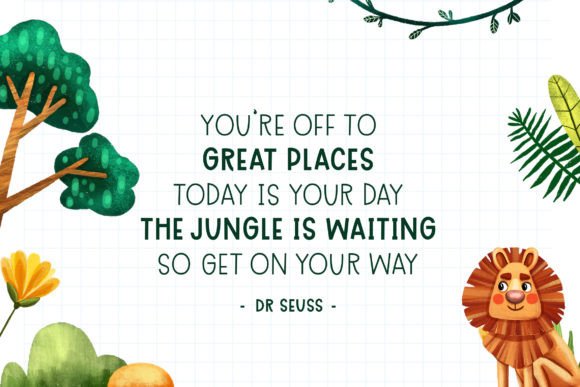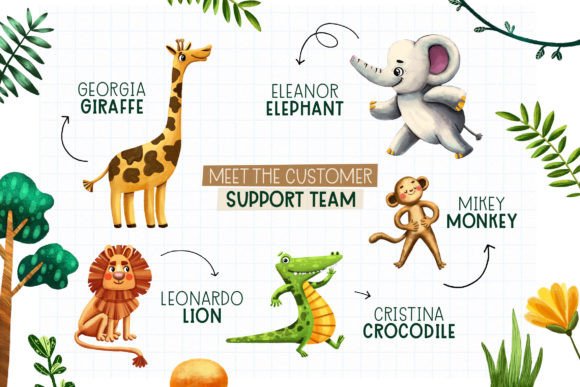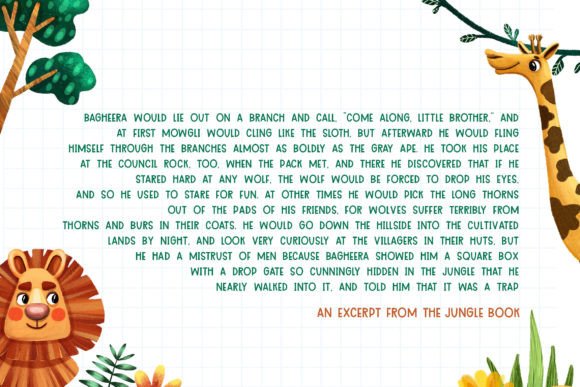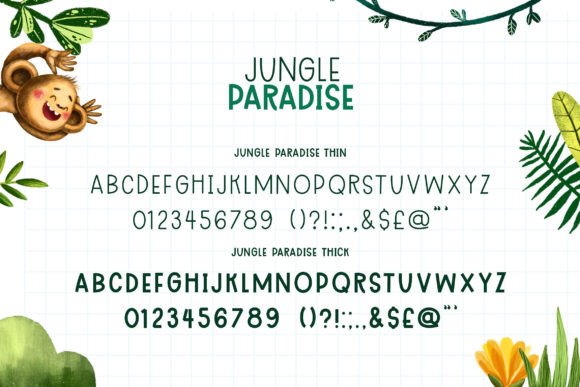
Introduction to Jungle Paradise Font
Jungle Paradise is a cute and playful display font.
Key Features of Jungle Paradise Font
Why Choose Jungle Paradise Font?